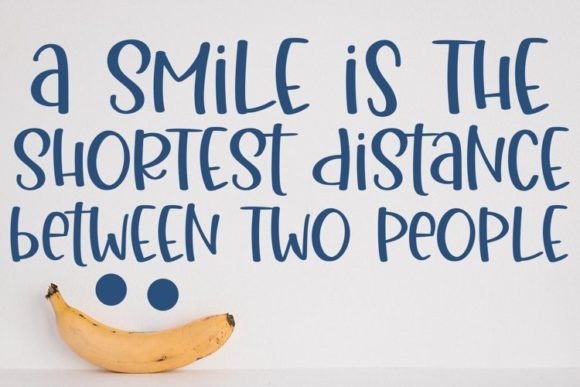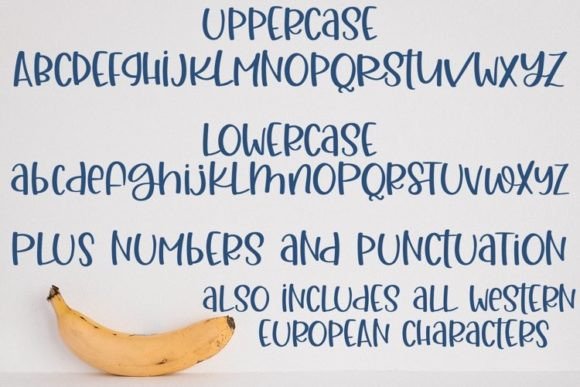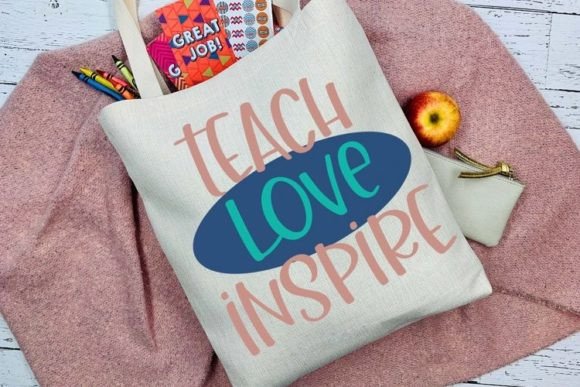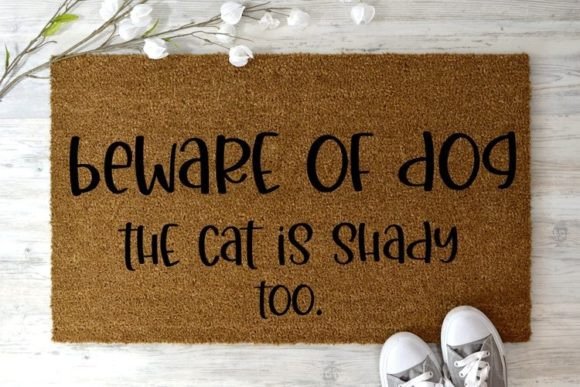
The Perfect Recipe for Your Next Design Project
Do you remember the moment when the perfect design idea strikes? The one that makes you jump out of your chair and rush to your computer to bring it to life? For me, it’s often a late-night brainstorming session fueled by a stack of pancakes and a cup of coffee. And that’s exactly how I landed on the Banana Pancakes Font – a quirky, handcrafted typeface that adds a touch of whimsy to any project.
The Banana Pancakes Font is more than just a pretty face; it’s a versatile tool for designers looking to add a personal touch to their work. Whether you’re working on a digital planner design, creating a logo, or crafting a motivational quote graphic for social media, this font is sure to elevate your project. And with its unique, handwritten style, it’s the perfect addition to any artisanal project or website design.
Banana Pancakes Font Key Features
- Font Family: Banana Pancakes Font is a unique, handwritten font designed for creative projects.
- Character Set: The font includes a wide range of characters, including uppercase and lowercase letters, numbers, and punctuation marks.
- Unique Characteristics: Banana Pancakes Font features a playful, handwritten style with a mix of cursive and print elements, making it perfect for adding a touch of whimsy to designs.
Designer Review: Banana Pancakes Font
I recently had the chance to work with the Banana Pancakes Font and here’s my honest take on it.
- ✨ Playful and Whimsical Feel: The font’s unique design captures a carefree, summery vibe that’s perfect for projects that need a lighthearted touch.
- ✨ High Legibility: The font’s rounded edges and clear letterforms make it easy to read, even at smaller sizes.
- ✨ Customization Options: The font comes with a range of styles and weights, allowing for a good deal of customization and flexibility in projects.
- ⚠️ Limited Professional Applications: While the font is great for casual projects, it may not be the best choice for formal or corporate materials due to its playful, informal feel.
- ⚠️ Lack of Consistency: Some of the font’s letters and symbols don’t quite align with traditional typography standards, which may be a concern for designers who value consistency.
The Banana Pancakes Font is a fun and versatile choice for designers looking to add a playful touch to their projects. While it may not be suitable for every application, it’s a great option for those who need a lighthearted, summery feel. With some careful selection and use, this font can be a great addition to any design toolkit.
Use the “Banana Pancakes Font” to add a playful touch to your designs.
Pair it with bright colors and whimsical illustrations for a fun and energetic look.
The “Banana Pancakes Font” is perfect for:
Food blogs and recipe websites.
Children’s book illustrations and designs.
Party invitations and event promotions.
Any design
Alternatives to Banana Pancakes Font
Pacifico is a beautiful, elegant script font that works well for creative and personal projects. It’s ideal for use in logos, branding, and typography-heavy designs. Compared to Banana Pancakes Font, Pacifico is more refined and sophisticated, making it a better choice for high-end designs.
Great Vibes is a modern, cursive script font that’s perfect for creating a fun and playful atmosphere. It’s great for use in food blogs, travel websites, and other creative projects. While it’s similar to Banana Pancakes Font in terms of its cursive style, Great Vibes is more energetic and youthful.
Are there any font customization options available for the Banana Pancakes Font?
Yes, the Banana Pancakes Font includes OpenType features such as stylistic sets, swashes, and ligatures. These features can be accessed in design software that supports OpenType, such as Adobe Creative Cloud. Additionally, some font editors may allow for manual customization of the font, but this is not recommended unless you have extensive font design experience.